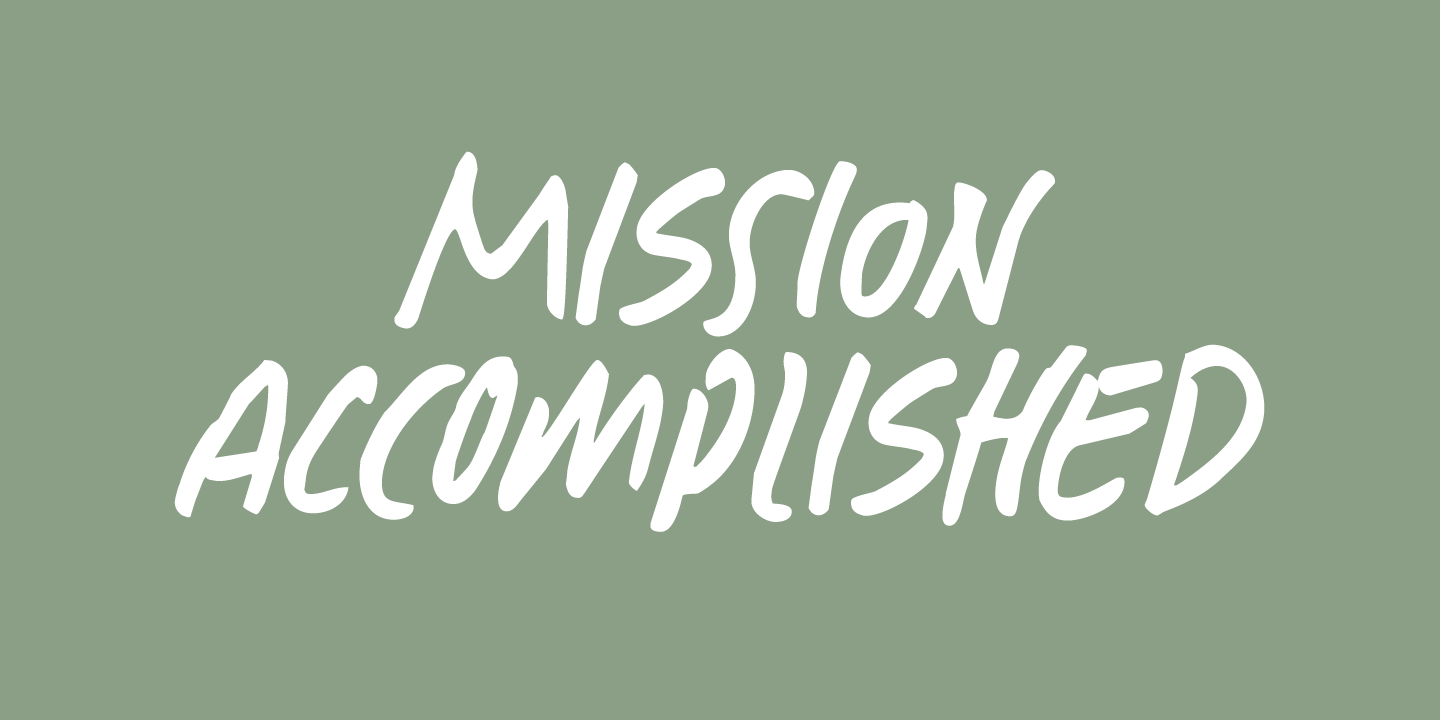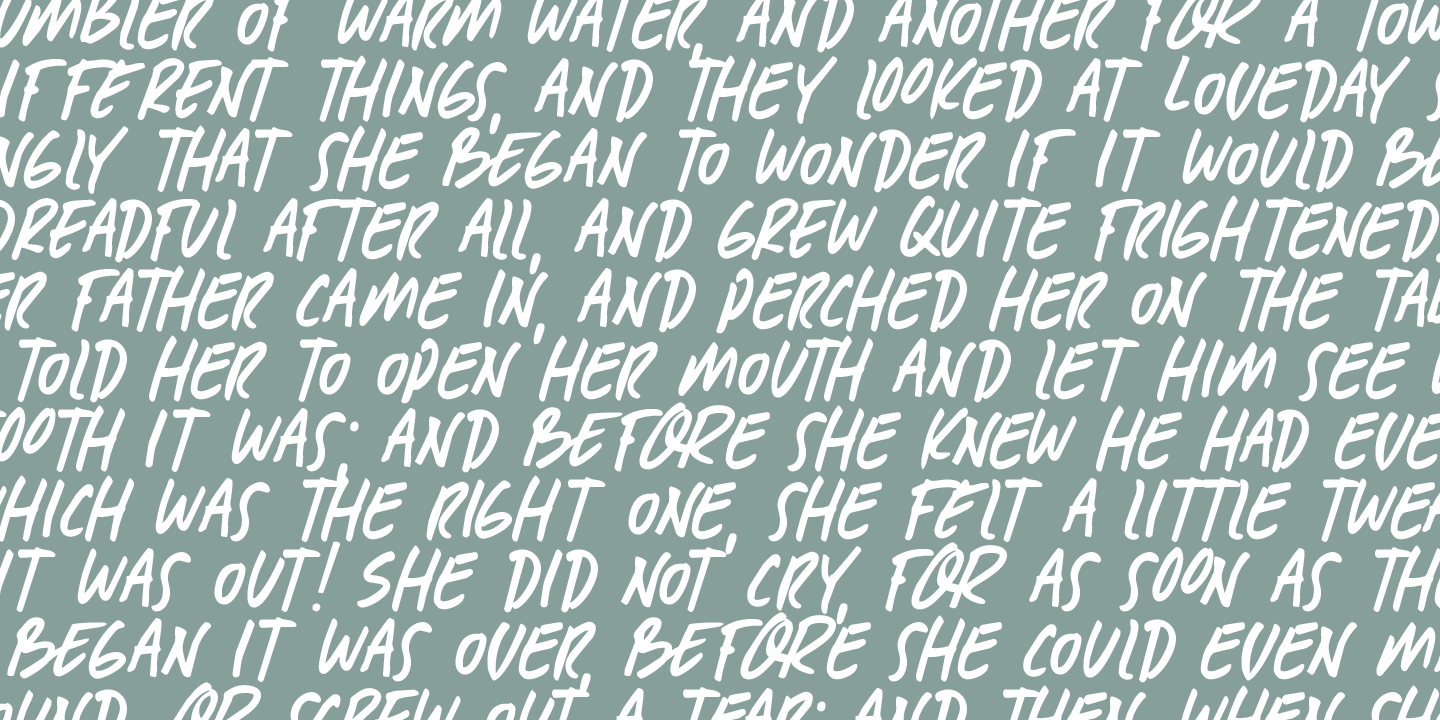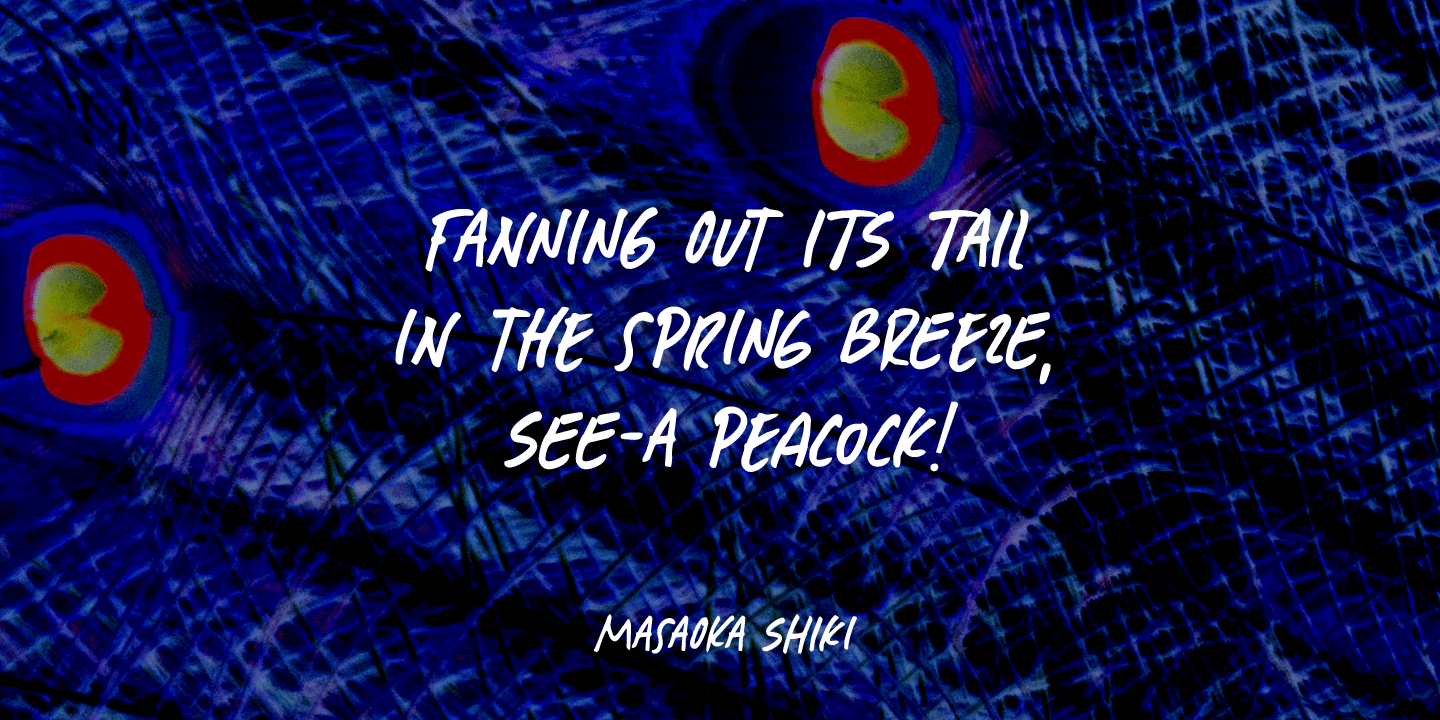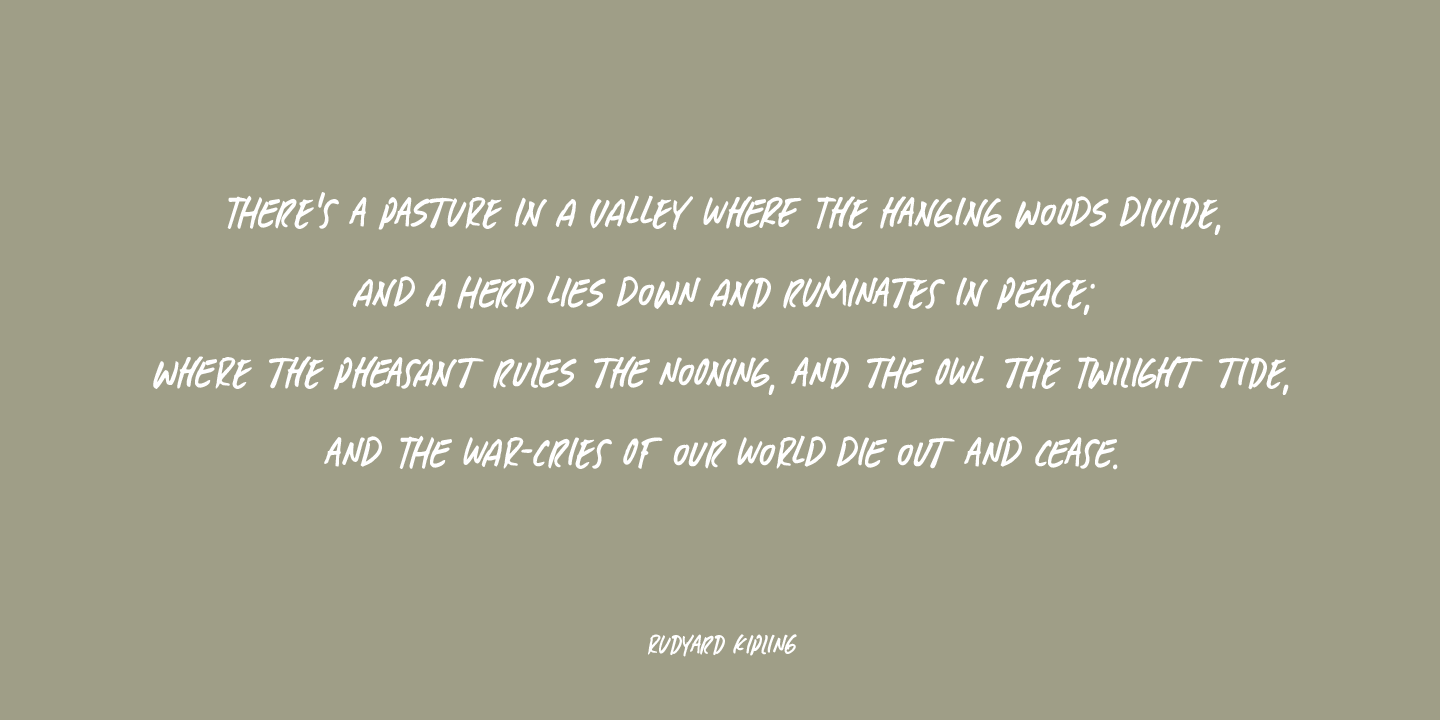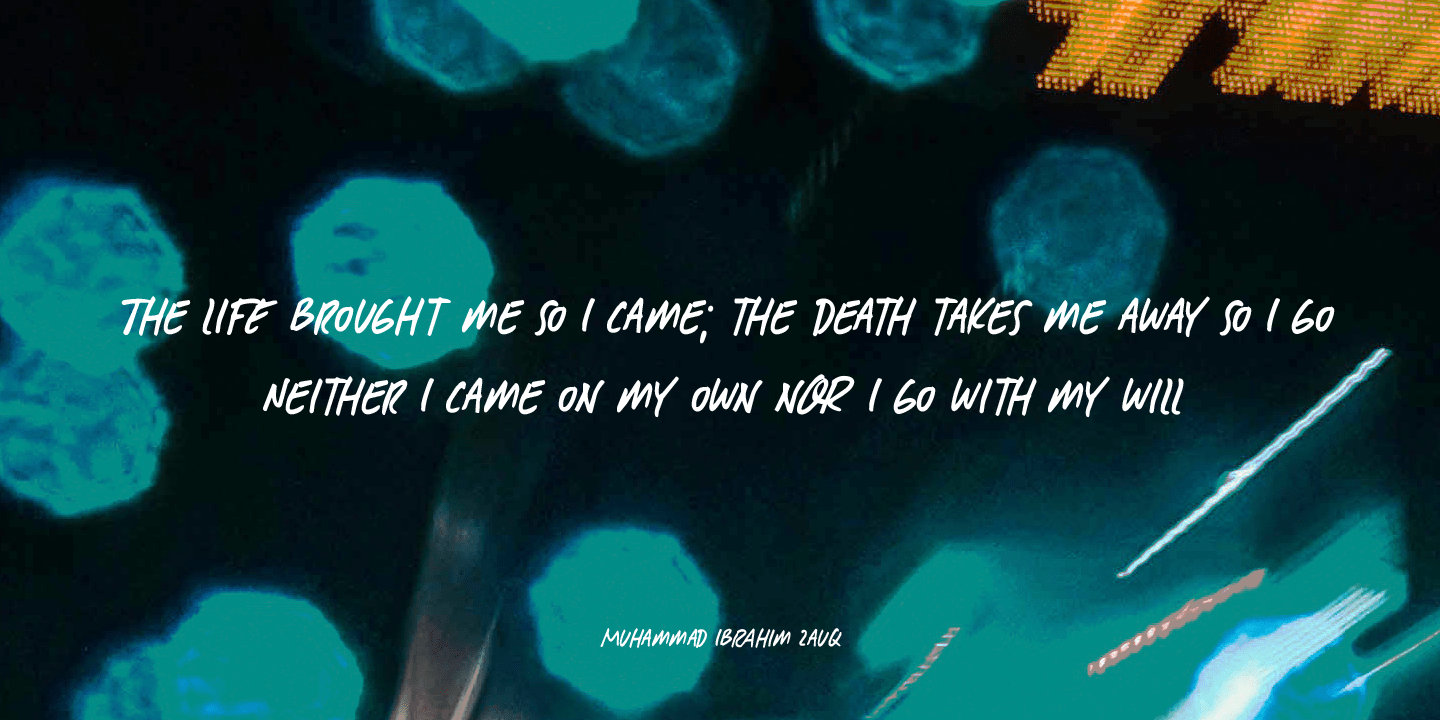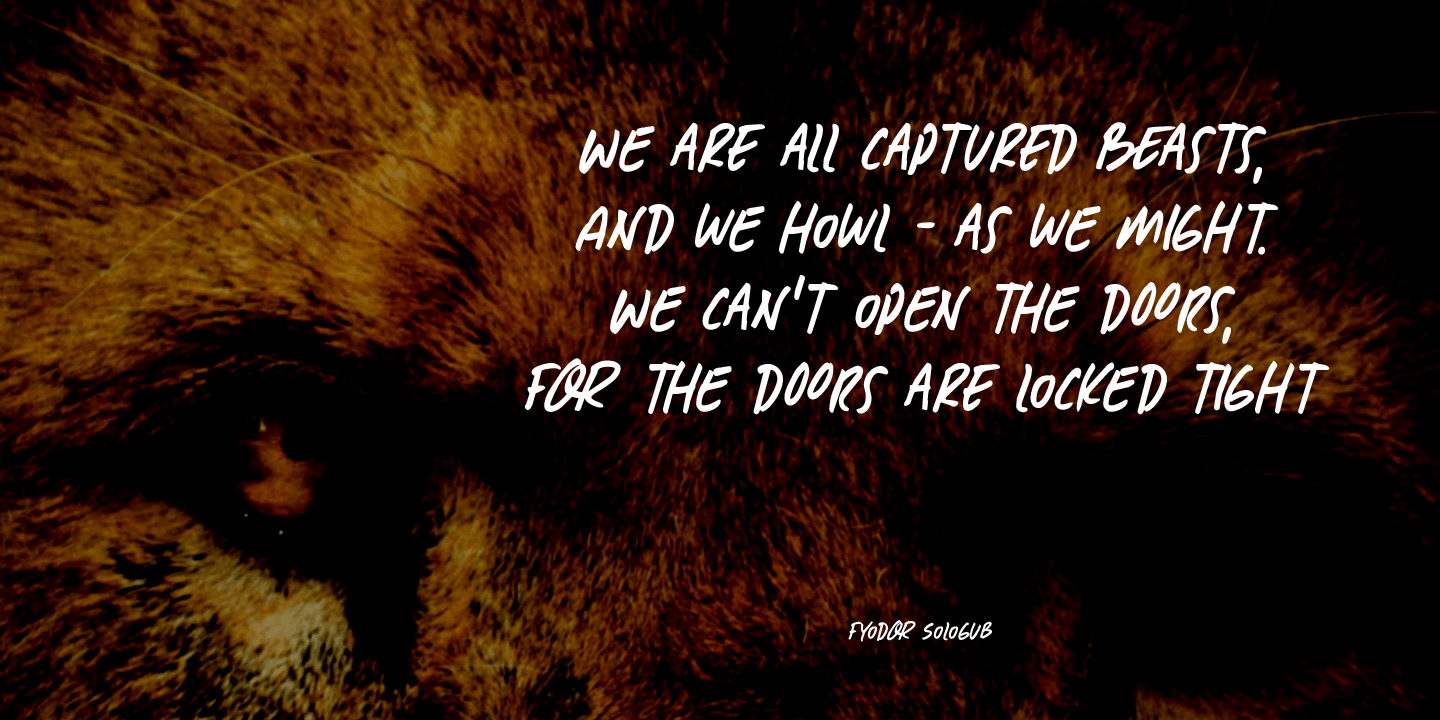
Mission Accomplished
Font Family by Hanoded
Buy NowMission Accomplished is a fast and furious kind of font. I started jotting down letters with a marker pen as fast as I could to see what would come out.
Well, this font came out.
Mission Accomplished can be used virtually anywhere, but single origin coffee bean packaging and artisan marmalade labels come to mind.
Comes with a bunch of cute discretionary ligatures as well!